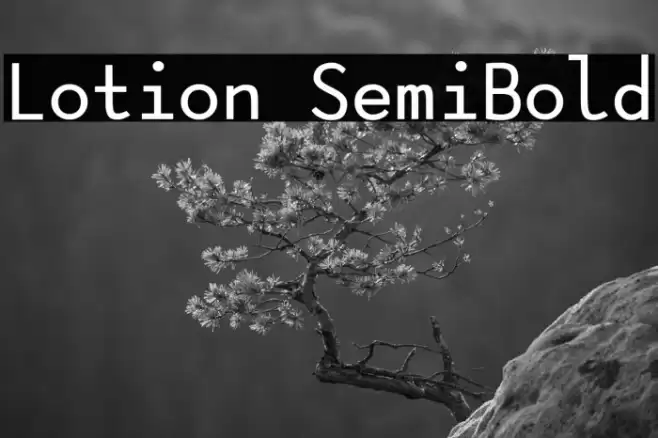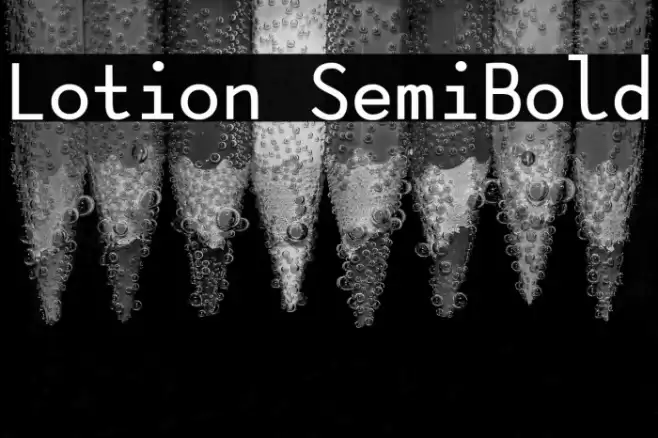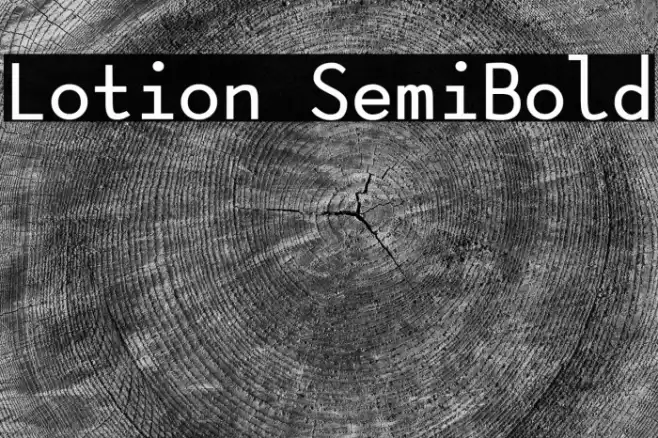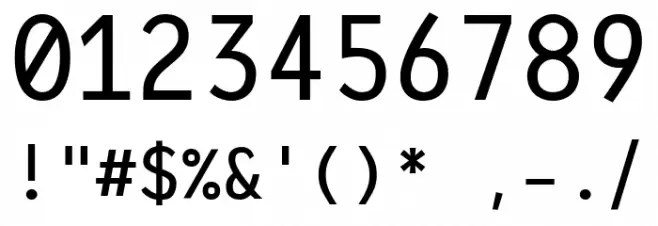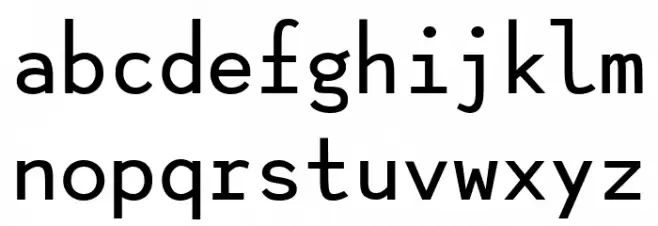
Lotion SemiBold Font
Lotion SemiBold Description
This font features a clean and modern sans-serif design with a semi-bold weight. The characters are uniformly structured, providing a balanced and harmonious appearance. The uppercase and lowercase letters maintain a consistent height ratio, while the numerals are clear and easily distinguishable. The special characters are well-integrated, complementing the overall aesthetic. The font's simplicity and clarity make it versatile for various design applications, offering a professional yet approachable look.
A clean, modern sans-serif font with semi-bold weight and balanced structure from Uncategorized fonts.
- Proposed Projects: Ideal for branding, editorial design, web design, and advertising materials.
- Use Case: Headlines, Body text, Logos